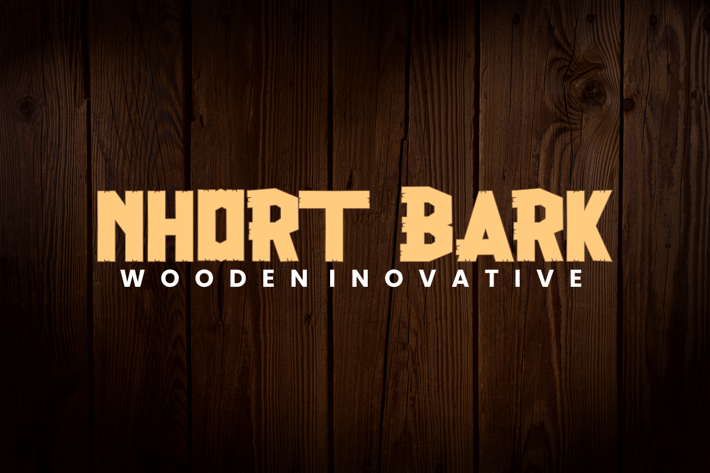
Nhort Bark - Display Font
Introducing Nhort Bark, a simple and modern sans serif font with wooden style.
So perfect for you who needs a typeface for logo designs, magazine, social media, brochure, and many more.